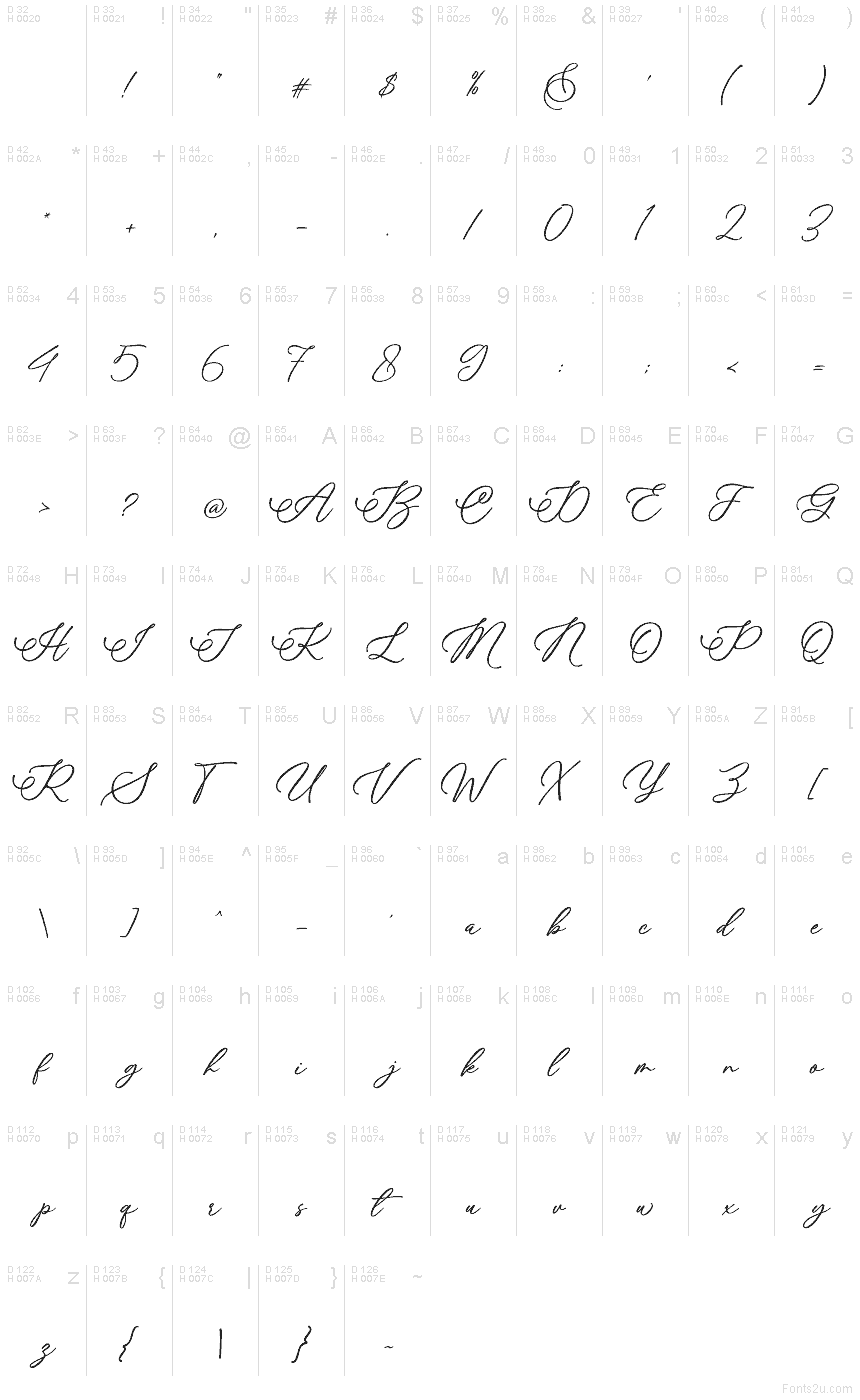
Aboutheart
Aboutheart font by Subectype & Orenari is an elegant cursive typeface that features flowing structures and versatile forms. This free calligraphy font strips away the unnecessary decorative nuances and embraces a straightforward yet sophisticated aesthetic that easily adapts to contemporary applications.